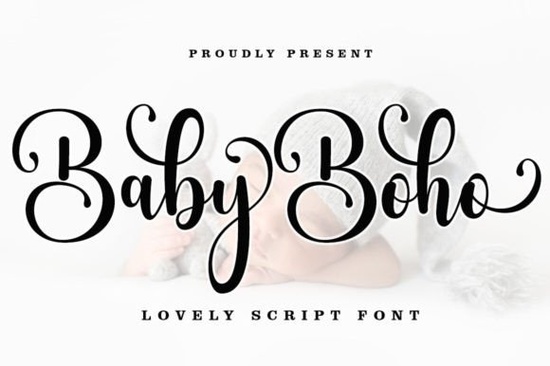
If you’ve been searching for a script font that feels both relaxed and elegant, Baby Boho Font might be exactly what your next project needs. It’s not overly formal or stiff instead, it carries a gentle, flowing rhythm with subtle swashes that give it personality without overwhelming your design. Whether you’re working on branding, invitations, or print-on-demand products, this modern calligraphy style adapts well across different uses. And if you like fonts with character variety like the playful curves in Peach Club or the romantic flair of Randy Sofia Baby Boho fits right into that collection.
What kinds of projects work best with Baby Boho?
This font was built for versatility. You can use it for:
- Wedding stationery think save-the-dates, menus, or place cards where soft elegance matters.
- Small business branding boutique logos, packaging labels, or social media graphics that need to feel personal.
- Crafting and POD mugs, tote bags, or wall art with handwritten quotes or affirmations.
- Book covers and posters especially indie titles or event promotions that want to stand out without shouting.
It’s also surprisingly readable at smaller sizes, which helps when you’re designing things like product tags or signature-style watermarks. If you’ve tried fonts like Alignment for clean minimalism or I Heart You for cute romance themes, Baby Boho sits comfortably between those tones casual but intentional.
How do I access all the extra characters and swashes?
This is especially helpful if you’re layering text or want to avoid repetition in longer phrases. For example, swapping out one “a” for a swash version in a quote can add visual interest without changing the layout. Many users pair this flexibility with other Creative Fabrica script fonts like mixing Baby Boho Font with simpler sans-serifs for contrast.
Is this font beginner-friendly?
Absolutely. Even if you’re new to typography or just starting with digital design tools, Baby Boho doesn’t require advanced skills to look good. The letterforms are intuitive, spacing is forgiving, and the default style (Regular) works straight out of the box. No need to tweak kerning or install plugins just type and go.
That said, if you want to dig deeper, experimenting with OpenType features or manually inserting alternates gives you more control. But you don’t have to. It’s one of those fonts that looks polished even when used simply perfect for Etsy sellers, teachers making classroom decor, or small shop owners updating their signage.
Will it clash with my other fonts?
Not likely. Baby Boho has enough personality to stand alone, but it also pairs nicely with clean, neutral fonts. Try combining it with a light sans-serif for headers and body text, or layer it over textured backgrounds for that handmade vibe. Users who’ve worked with this font often mention how well it complements rustic, boho-chic, or minimalist aesthetics so if your brand leans into any of those, you’re already halfway there.
And because it’s not overly ornate, you won’t run into legibility issues on merchandise or printed materials. That’s a common concern with script fonts, but Baby Boho avoids being too busy or delicate.
- Use alternate characters sparingly one or two per line is usually enough.